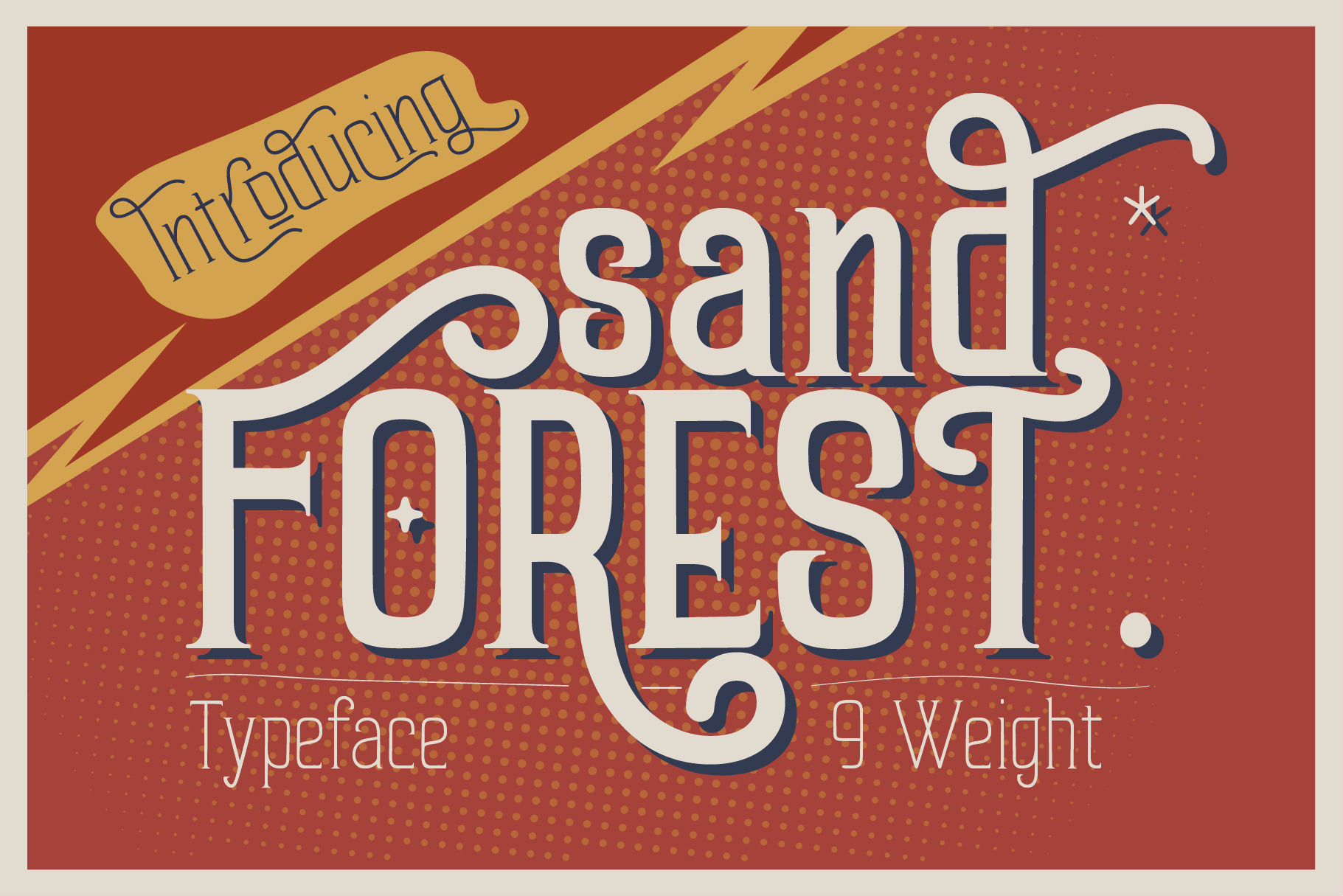
Sand Forest - Retro Display Font
Sand Forest is a display font with a full set of uppercase and lowercase letters, multilingual symbols, numerals, punctuation, and ligatures. Sand forest retro display font 9 family, classic and retro style for poster design, magazines, branding concept.